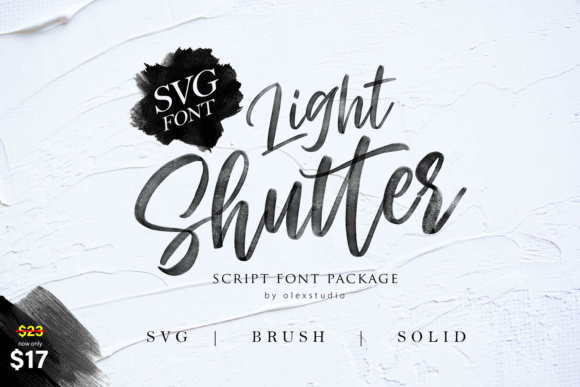
Introducing the remarkable Light Shutter Font Family, a mesmerizing collection of three fonts designed to captivate your designs with elegance and charm. Immerse yourself in a world of flowing lines, graceful curves, and the enchanting allure of brush and solid typography.
Crafted by the ingenious minds at Olexstudio, the Light Shutter Font Family is a tribute to beauty and versatility. Each font in this trio exudes its unique character, allowing you to express your creative vision with boundless possibilities. The Regular Brush font captivates with its natural, handwritten charm, while the Regular Solid font adds a touch of sophistication with its crisp and clean lines. And for those seeking an extraordinary visual dimension, the SVG font opens up a realm of creativity beyond imagination.
Experience the beauty of the Light Shutter Font Family in your designs and witness the transformation of the ordinary into the extraordinary. Its alluring curves and delicate strokes will enchant your audience, evoking emotions and leaving a lasting impression. Whether you're crafting logos, branding materials, invitations, social media graphics, or any creative project, the Light Shutter Font Family will elevate your designs to new heights.
Embrace the artistry of the Light Shutter Font Family and unlock the door to a world where imagination knows no bounds. Its versatility extends across a multitude of design projects, making it an indispensable tool for designers seeking to make a statement.